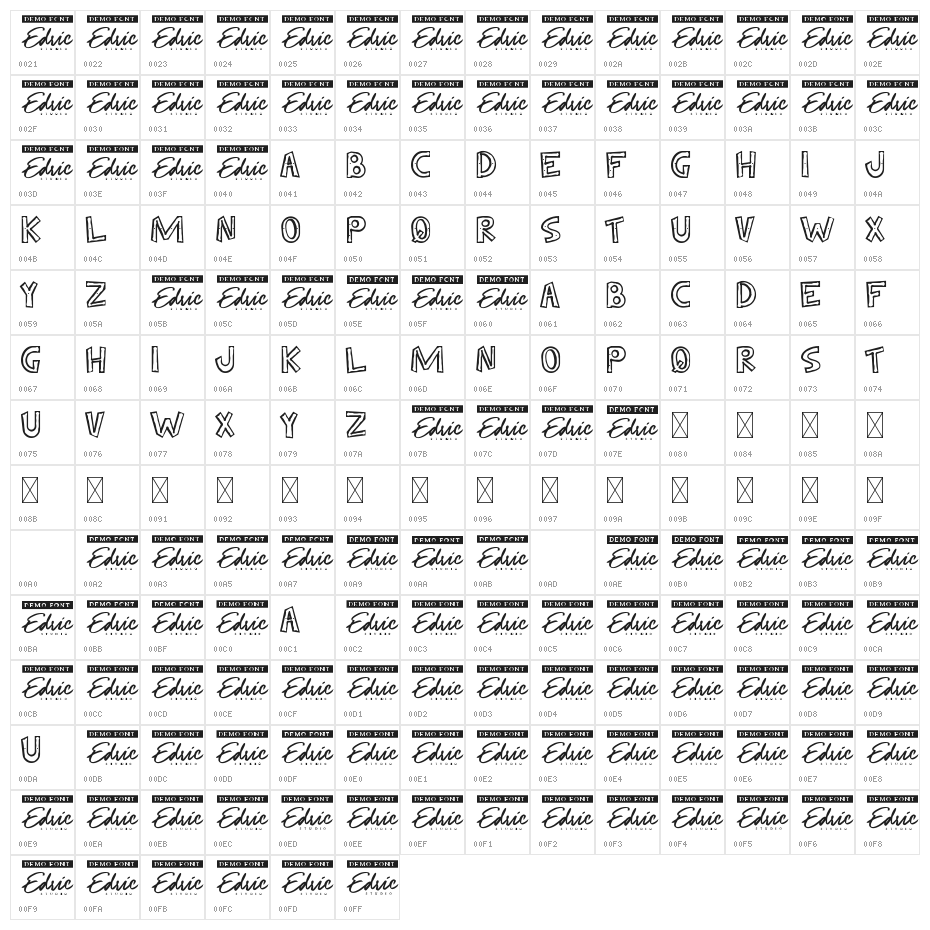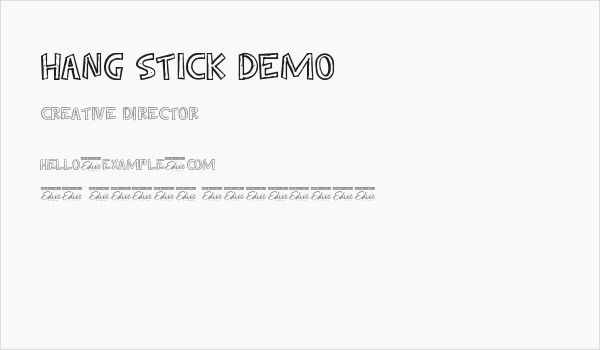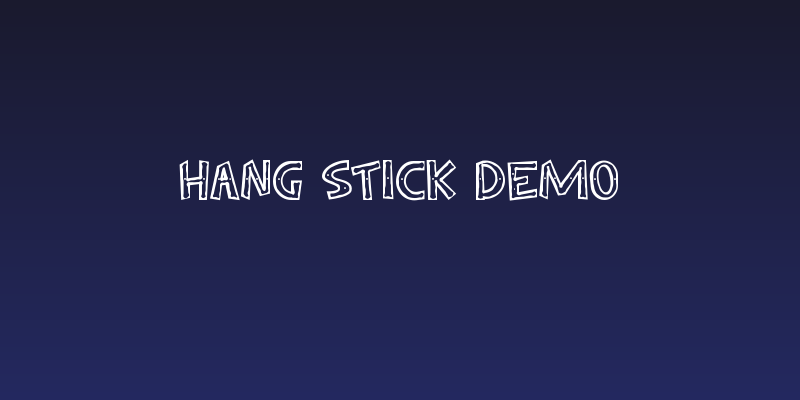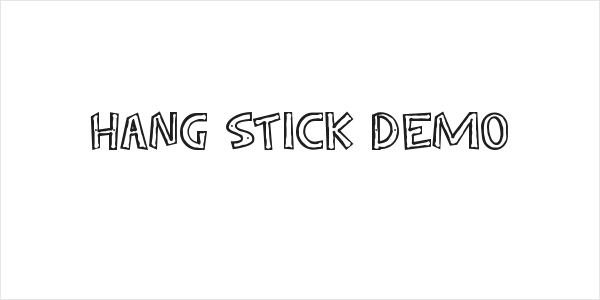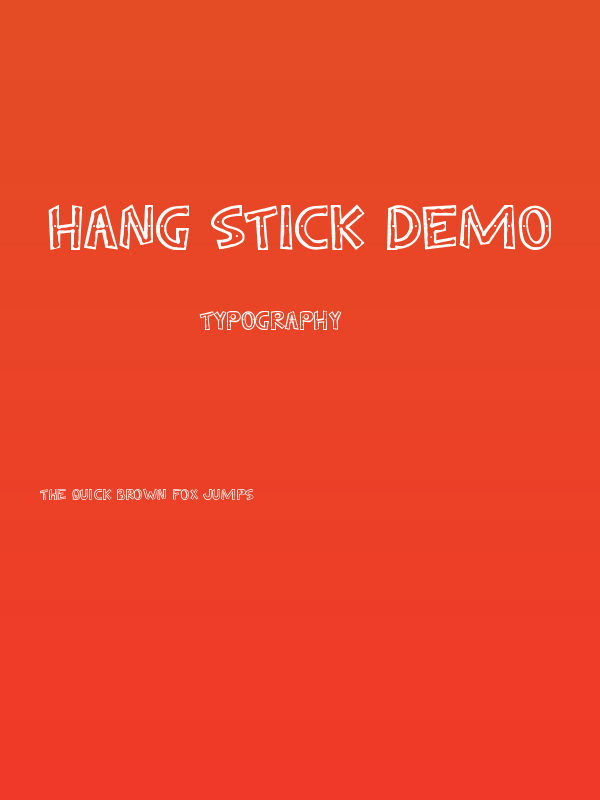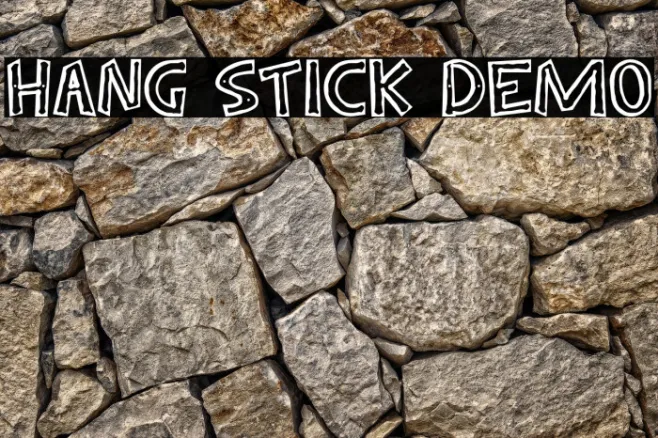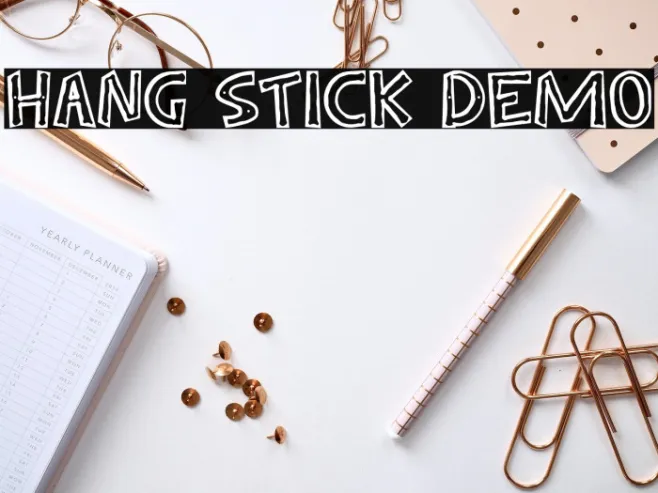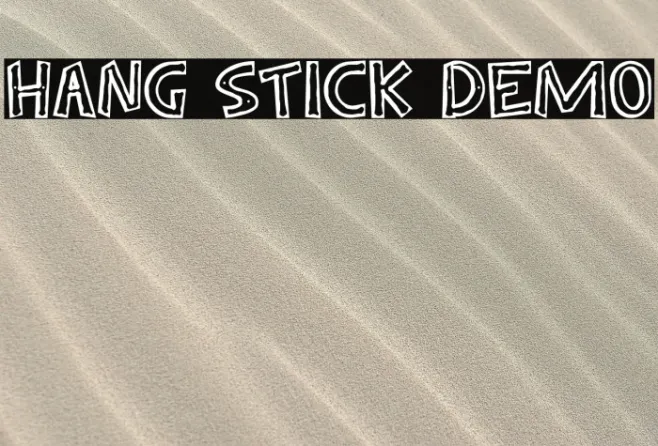
Hang Stick Demo Font
Hang Stick Demo Description
This font features a playful and artistic style with a hand-drawn appearance. The uppercase letters are bold and slightly irregular, giving them a whimsical and casual feel. Each character is outlined, adding a layer of depth and texture. The strokes are uneven, contributing to a dynamic and lively aesthetic. The font includes a full set of uppercase letters, numbers, and a selection of special characters, making it versatile for various creative projects. Its unique style is suitable for designs that aim to convey a sense of fun and creativity.
| Overall Style | Playful, Artistic |
| Proposed Projects | Ideal for children's book covers, playful branding, greeting cards, and creative posters. |